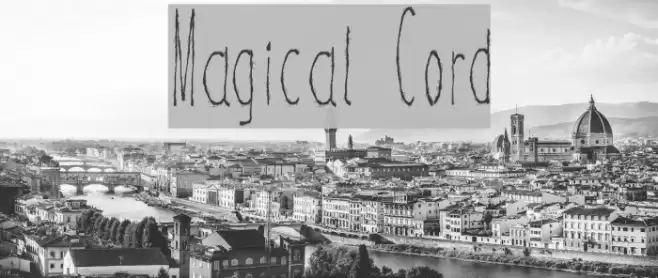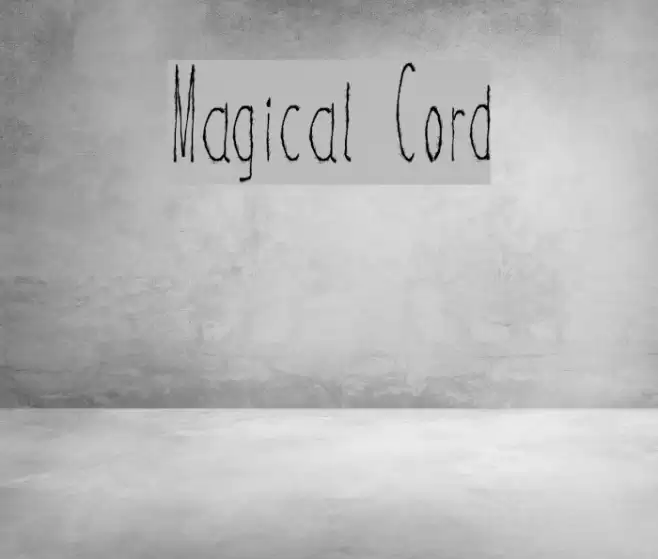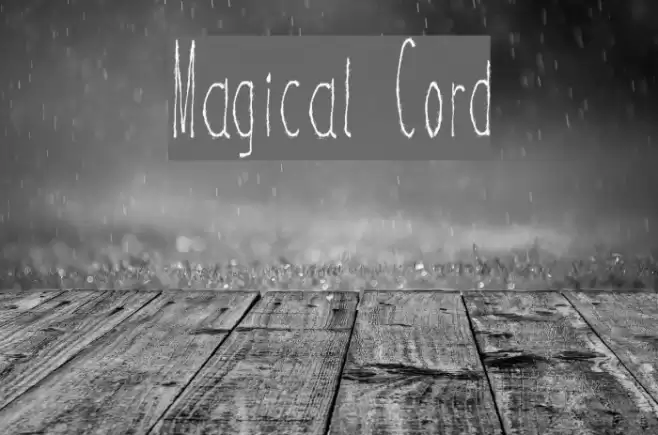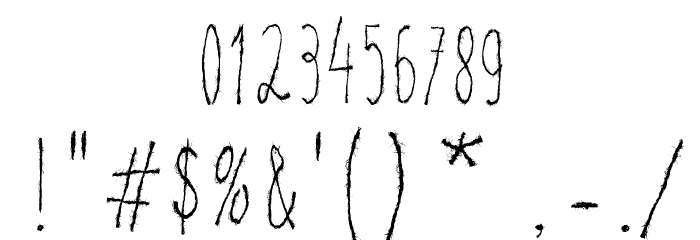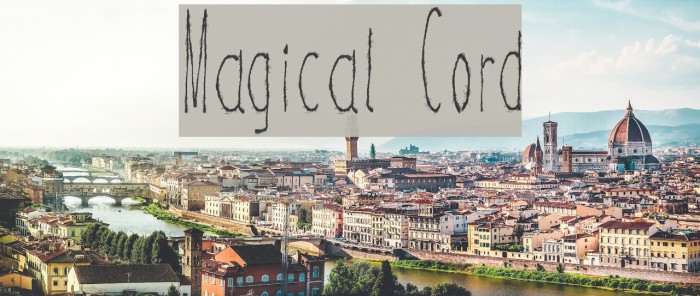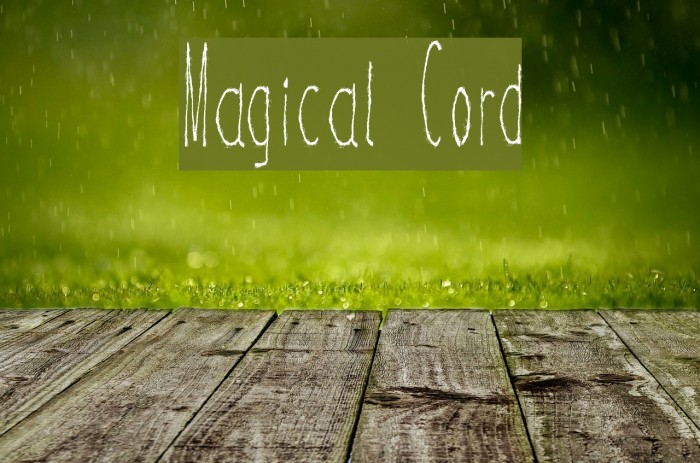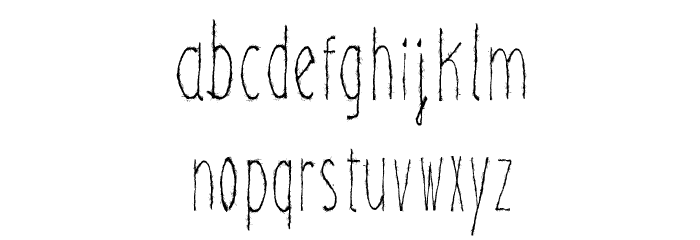
Magical Cord Font
Magical Cord Description
This font features a whimsical and hand-drawn aesthetic, characterized by its irregular and slightly uneven strokes that give it a playful and artistic feel. The letters are tall and narrow, with a slight wobble that adds to the charm and uniqueness of the design. The uppercase and lowercase letters maintain a consistent style, while the numbers and special characters are crafted with the same quirky flair. The overall appearance is reminiscent of a sketch or doodle, making it ideal for projects that require a personal and creative touch.
A whimsical, hand-drawn font with irregular strokes and a playful style from Uncategorized fonts.
- Proposed Projects: Ideal for children's books, greeting cards, creative posters, and artistic branding.
- Use Case: Headlines, Logos, Creative projects